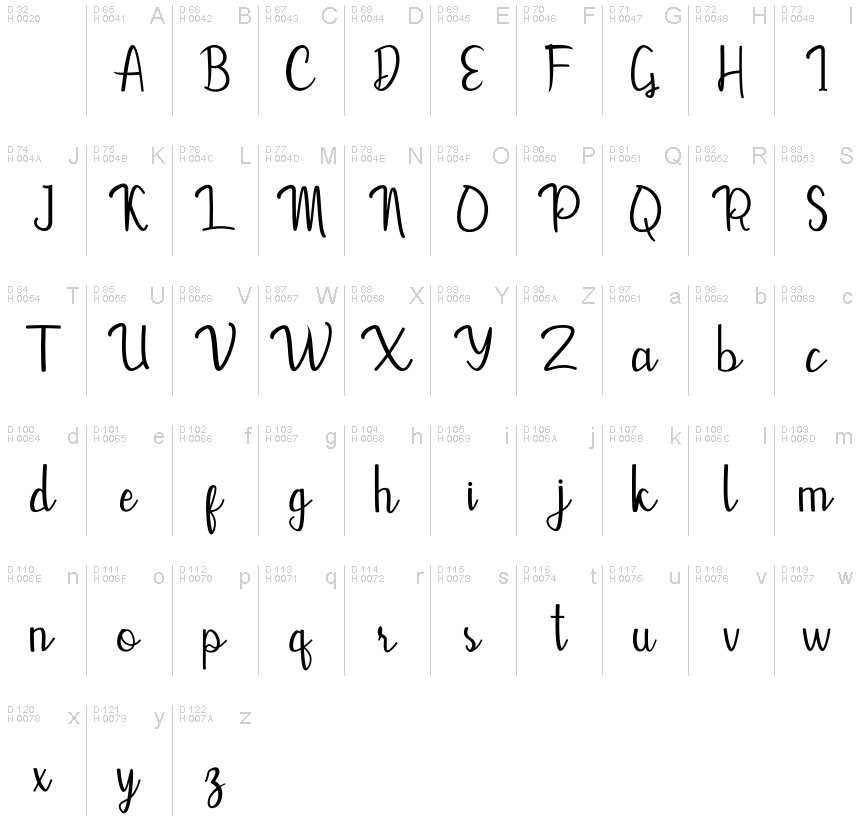
Mevally
Mevally is a striking handwritten font that exudes a captivating sense of movement and fluidity. Crafted by designer Noschey (RizkiMrdth), this font boasts an elegant, cursive aesthetic that seamlessly blends organic curves with a touch of playfulness.
The distinct, expressive strokes and varying line weights lend the text a natural, hand-crafted feel, making it an ideal choice for a wide range of design applications, from editorial layouts and branding materials to invitations and greeting cards.
Mevally's versatility shines through its ability to convey a sense of warmth and personality, making it a valuable asset in any designer's toolkit.
The distinct, expressive strokes and varying line weights lend the text a natural, hand-crafted feel, making it an ideal choice for a wide range of design applications, from editorial layouts and branding materials to invitations and greeting cards.
Mevally's versatility shines through its ability to convey a sense of warmth and personality, making it a valuable asset in any designer's toolkit.